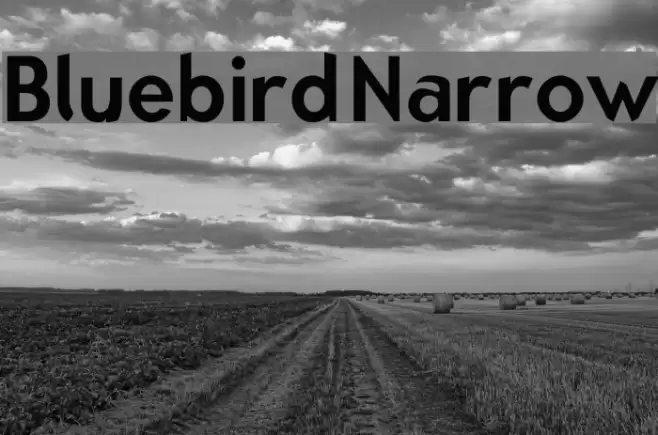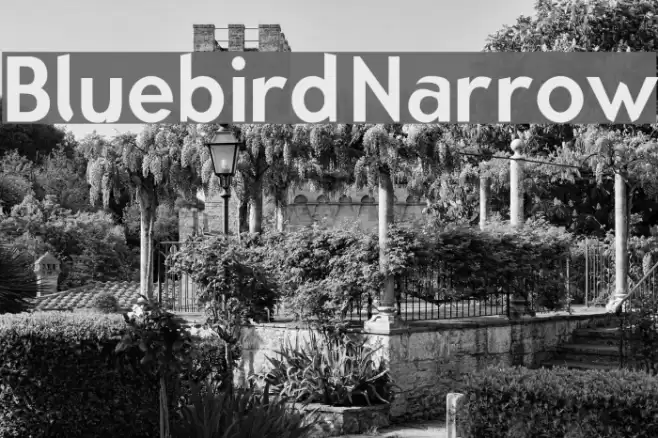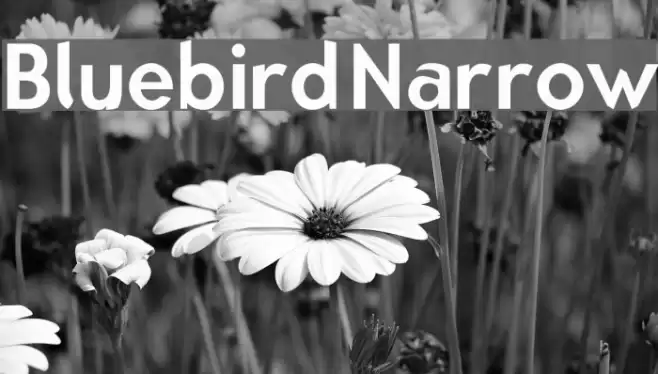
Bluebird Narrow Font
Bluebird Narrow Description
This typeface features a clean and modern aesthetic with a sans-serif style. The characters are narrow and condensed, providing a sleek and efficient use of space. The strokes are consistent and uniform, contributing to a balanced and harmonious appearance. The font maintains clarity and readability, making it suitable for various applications. Its geometric shapes and even weight distribution give it a contemporary feel, while the narrow width allows for more text to fit in a given space without sacrificing legibility.
A modern, narrow sans-serif font with a clean and efficient design from Uncategorized fonts.
- Proposed Projects: Ideal for use in headlines, advertising, branding, and digital interfaces where space efficiency and modern aesthetics are desired.
- Width: Condensed
- Use Case: Headlines, Logos, Digital Interfaces